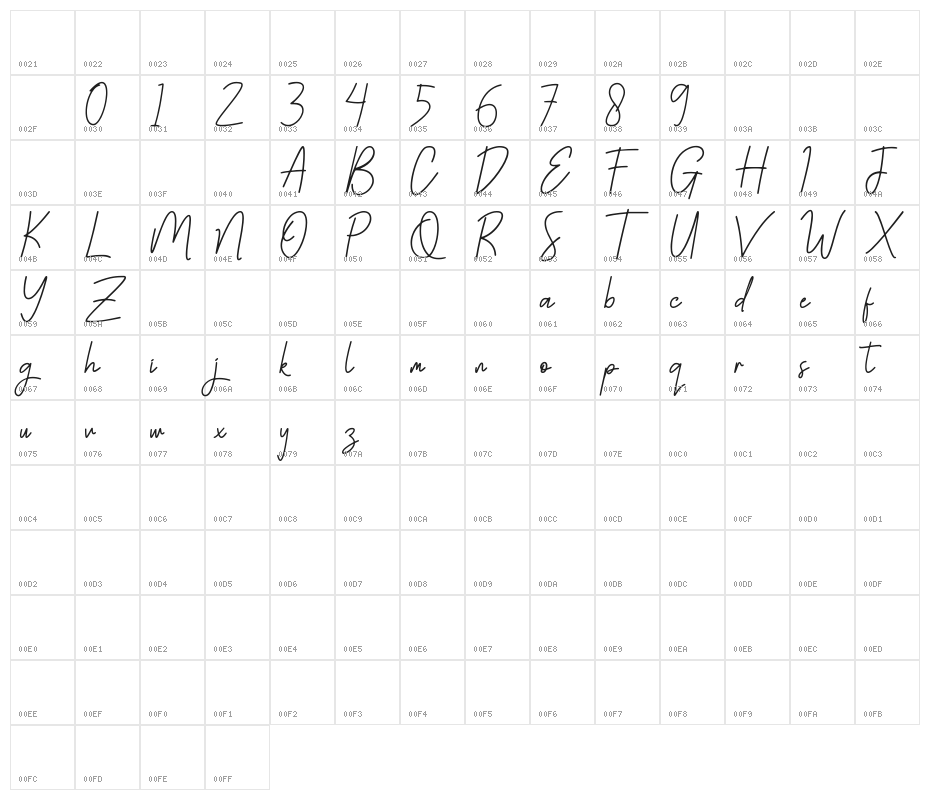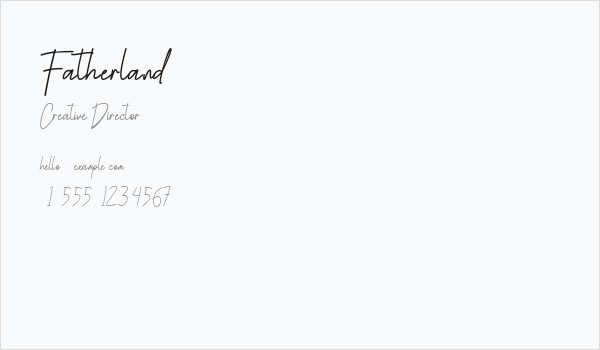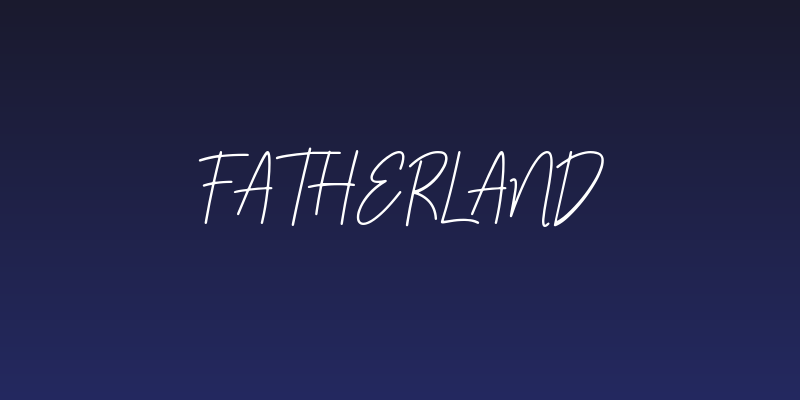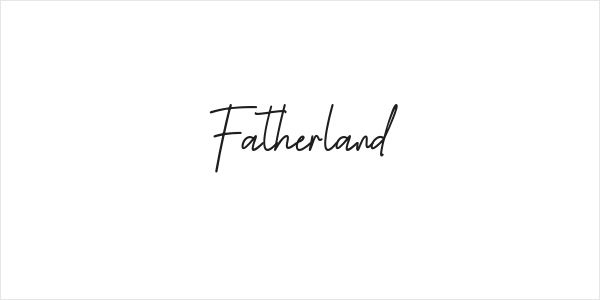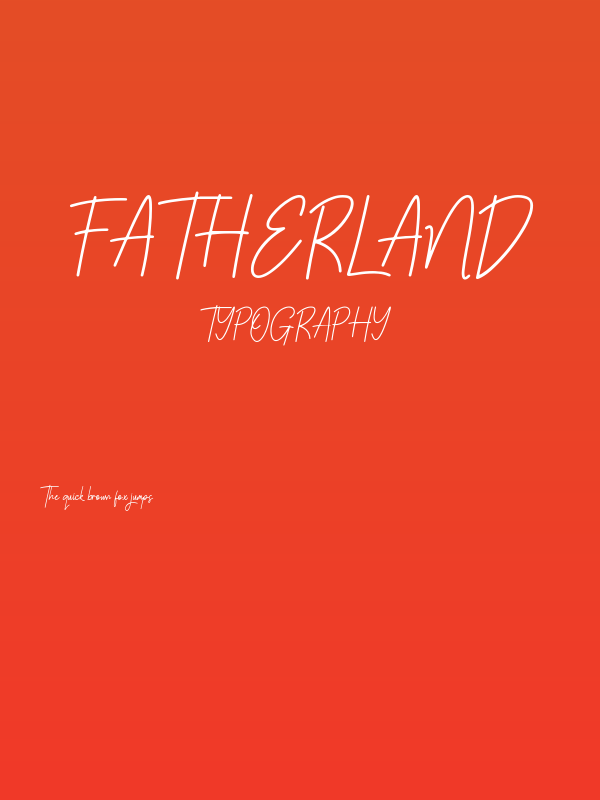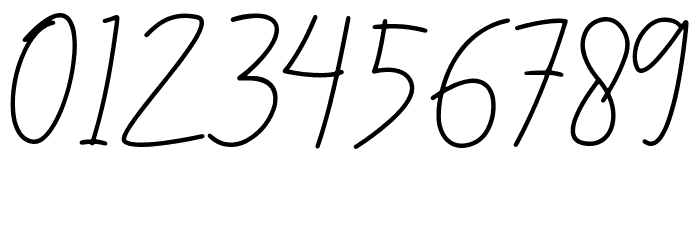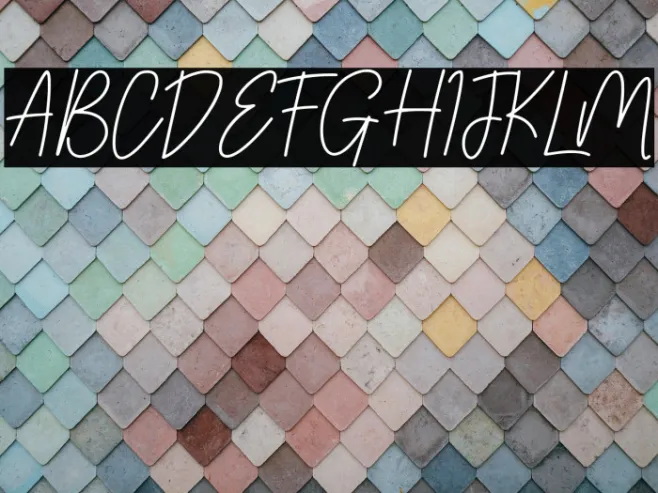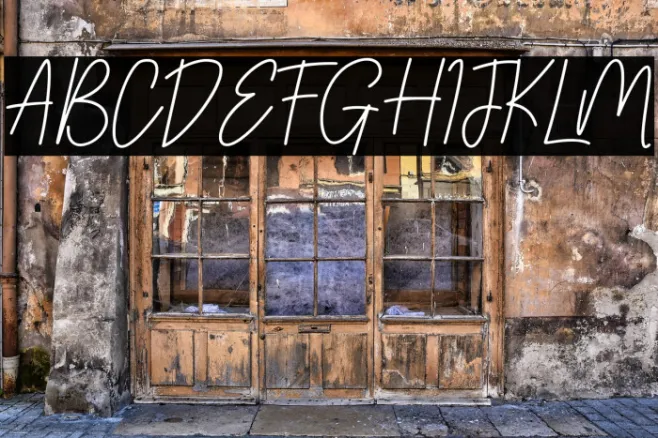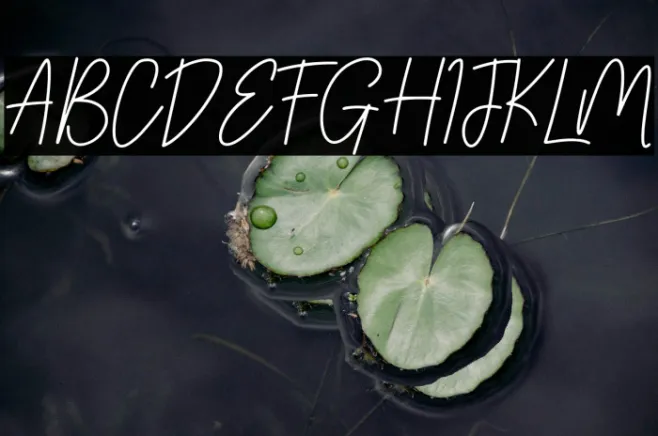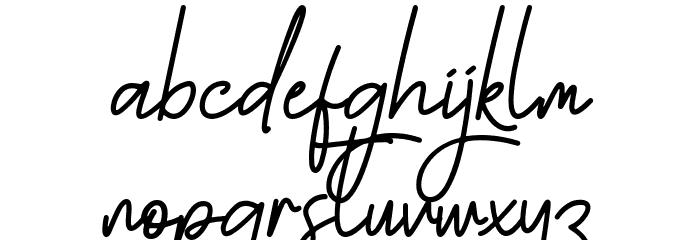
Fatherland Font
Fatherland Description
This font features a dynamic and fluid handwritten style, characterized by its elegant and flowing letterforms. The uppercase letters are tall and slightly narrow, with a consistent stroke width that gives them a refined appearance. The lowercase letters exhibit a more playful and casual style, with some letters having distinctive loops and curves that add personality. The numerals are clear and legible, maintaining the same fluidity as the alphabetic characters. The special characters blend seamlessly with the overall design, ensuring a cohesive look. This font's unique style makes it suitable for projects that require a personal touch or an artistic flair.
| Proposed Projects | Ideal for wedding invitations, personal branding, greeting cards, and artistic projects. |